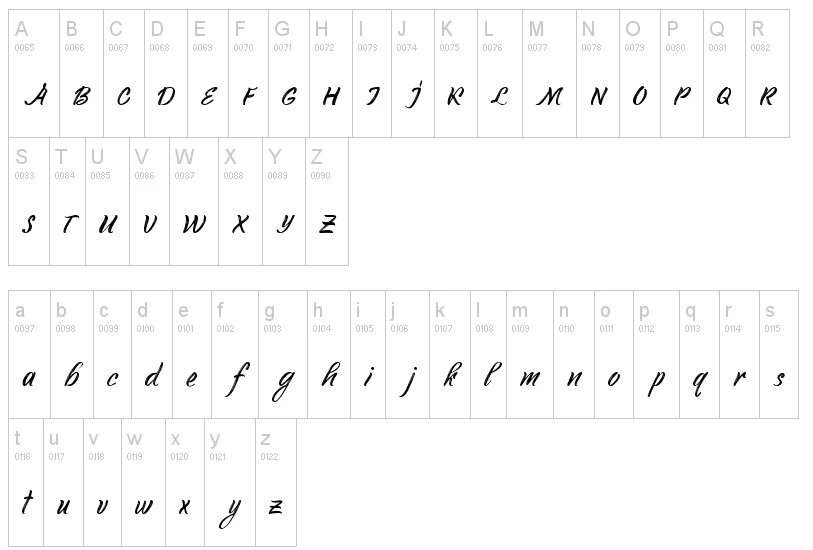
Do you want a font that blends perfectly in your content? Designs related to lifestyle, traveling, art, writing, and young people? Youth touch is a perfect match for your needs and its free for you to download. It looks like a very energetic font in every aspect. It resonates perfectly with the youth and has a very fresh look.
Professional font creator Hero Fonts has created Youth Touch Font. It comes with various forms in the font pack. Bold, italic, regular, etc. But the version we are providing is the regular version which is a TrueType Font. The premium version has a web version included in addition to the regular version.
You can use this beautiful typographic font for various purposes. Also, you can use Youth Touch font in a variety of design projects – logo and branding. Other real-life uses like wedding cards, posters, leaflets, etc. For marketing such as- social media posts, advertisement, product designs. Magazines nowadays use script fonts like Youth Touch. At the same time, you can use this one in magazines, newspapers, and ebooks.
| Name | Youth Touch Font |
| Style | Regular |
| Author | Hero Fonts |
| Type | Script |